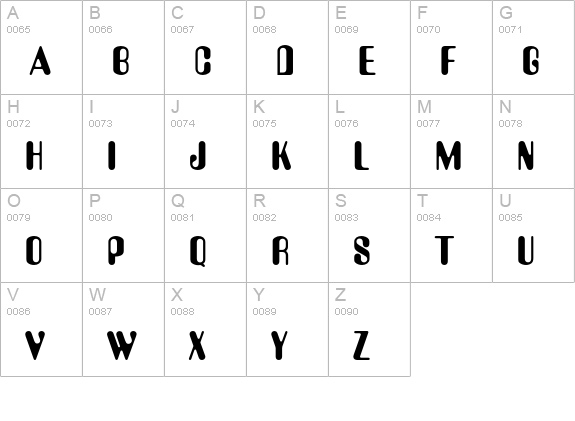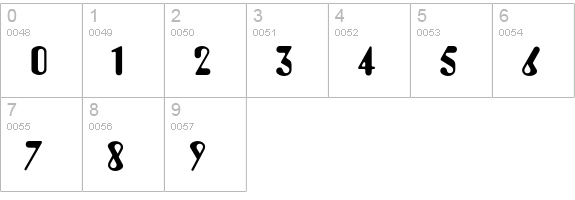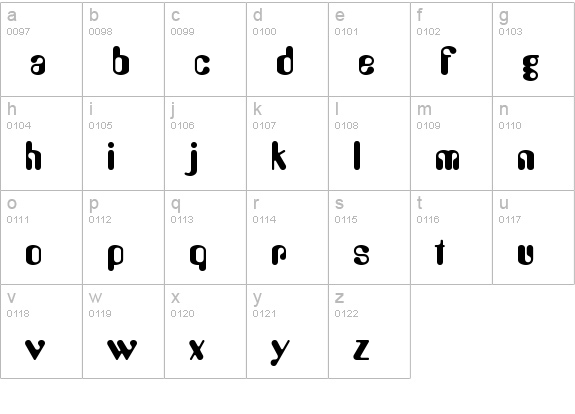
AmeliaLL Font Details
AmeliaLL font is a beautiful and elegant typeface that exudes sophistication and charm. Its delicate curves and graceful strokes make it perfect for a wide range of design projects, from invitations to branding to packaging. With its timeless appeal and versatile style, AmeliaLL font is sure to elevate any project to the next level. Best of all, AmeliaLL font is completely free to download at FontsMarket.com. This means you can easily access this stunning font and use it in your designs without any cost. Don't miss out on the opportunity to add this exquisite typeface to your collection and enhance your creative work with the classic beauty of AmeliaLL font.